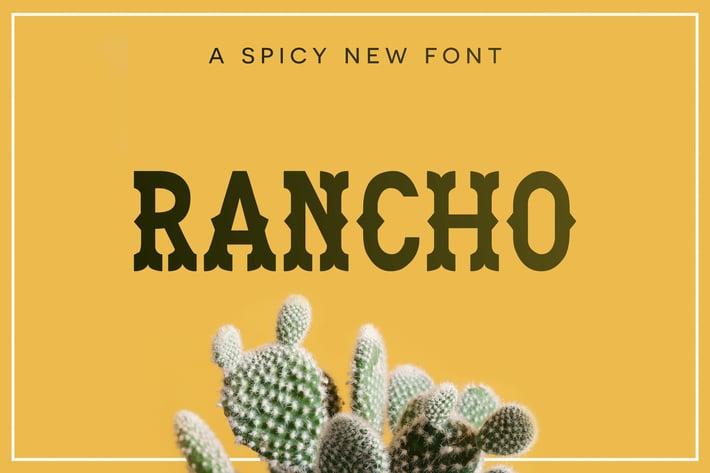
Rancho Font
ABOUT RANCHO :
Rancho is a western film inspired typeface that will leave you feeling nostalgic and tough. With bold points and rugged looks this font will make your designs pop right off the page! It's perfect for monograms, logos, prints, posters, and more!
Over 75 Bonus Glyphs including International Language Support